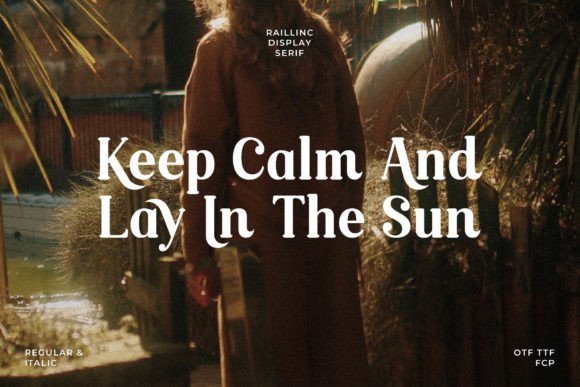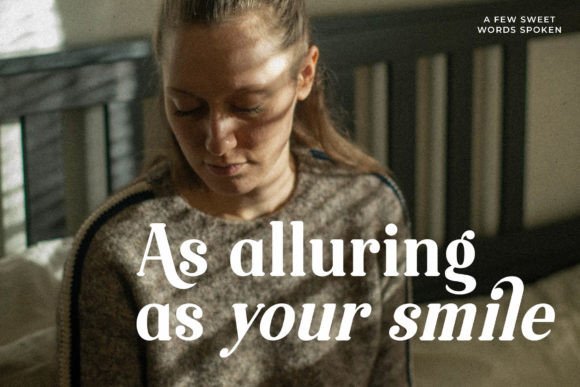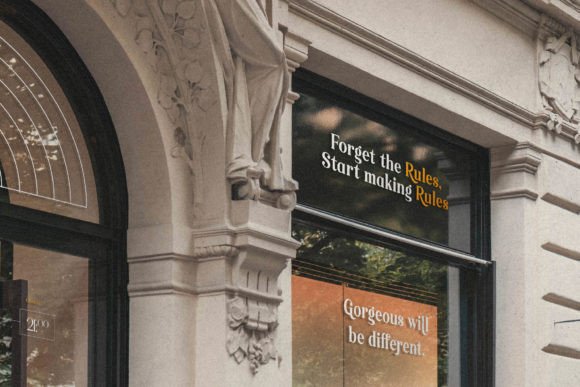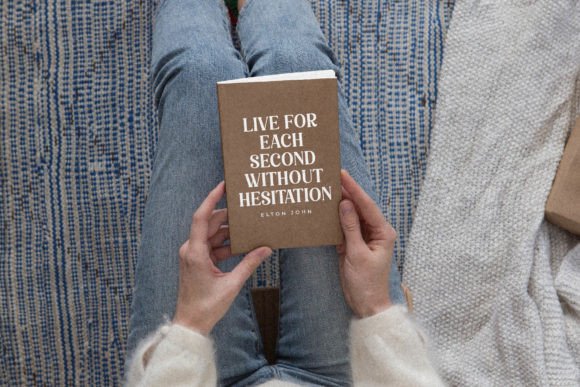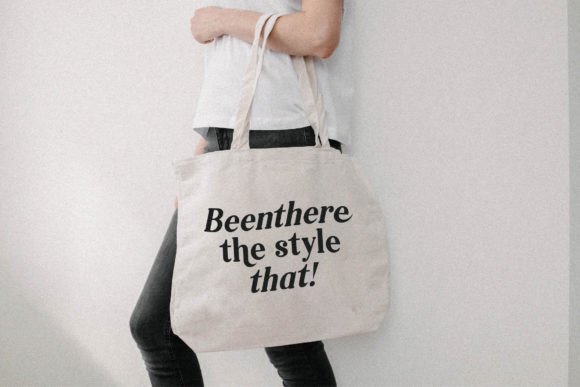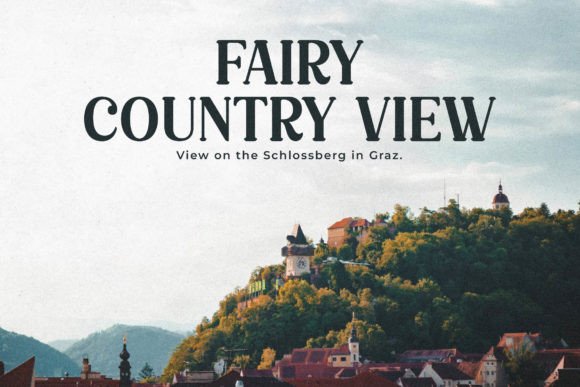
Introduction to Raillinc Font
Have you ever found yourself staring at a blank canvas, eager to bring your creative vision to life, only to be held back by the perfect font? That’s where the Raillinc Font comes in – a game-changing serif typeface that combines modern style with classic elegance. As a designer, you know that the right font can make all the difference in elevating your project from good to great.
Whether you’re working on a luxury logo, a book or movie title, or a fashion brand, the Raillinc Font is the perfect design resource to add a touch of sophistication and refinement. With its high-quality design and transparent background, this typeface is a free download that’s sure to become a staple in your creative arsenal.
What sets the Raillinc Font apart is its unique ability to adapt to any creative project, from magazine headlines to quotes and lettering. Its versatility and modern look make it an invaluable asset for designers seeking to create stunning visuals that leave a lasting impression.
Key Features of Raillinc Font
- Designed to be highly legible at various sizes and resolutions, from 72 dpi to 300 dpi.
- Supports a wide range of languages, including English, Spanish, French, and many others.
- Perfect for use in graphic design, web design, and digital art projects where a unique and stylish font is required.
Honest Review: Raillinc Font
As a designer, I’m always on the lookout for high-quality design resources that can elevate my creative project. Recently, I stumbled upon the Raillinc Font, and I’m excited to share my honest review with you.
- High-quality design: The Raillinc Font has a clean and modern design that’s perfect for a variety of creative projects.
- Multiple styles: The Raillinc Font comes in a range of styles, from bold to light, giving designers plenty of options for their creative project.
- Limited character set: The font’s character set is limited, which may not be suitable for designers who need a wide range of characters.
- No support for non-English languages: The font is only available in English, which may limit its use for designers who work with non-English languages.
Overall, I’m impressed with the Raillinc Font, and I think it’s a great addition to any designer’s toolkit. While it has some limitations, its high-quality design and free download make it a valuable resource for designers on a budget.
The Raillinc Font is a high-quality, free download design resource that can elevate your creative project to the next level. With its unique style and versatility, it’s perfect for various design applications.
For the best results, use the Raillinc Font on a transparent background to create a clean and modern look. Experiment with different font sizes and styles to add depth and visual interest to your design.
The Raillinc Font is perfect for creating social media graphics, presentations, and documents. It’s also great for branding and logo design, as well as creating custom graphics for websites and blogs.